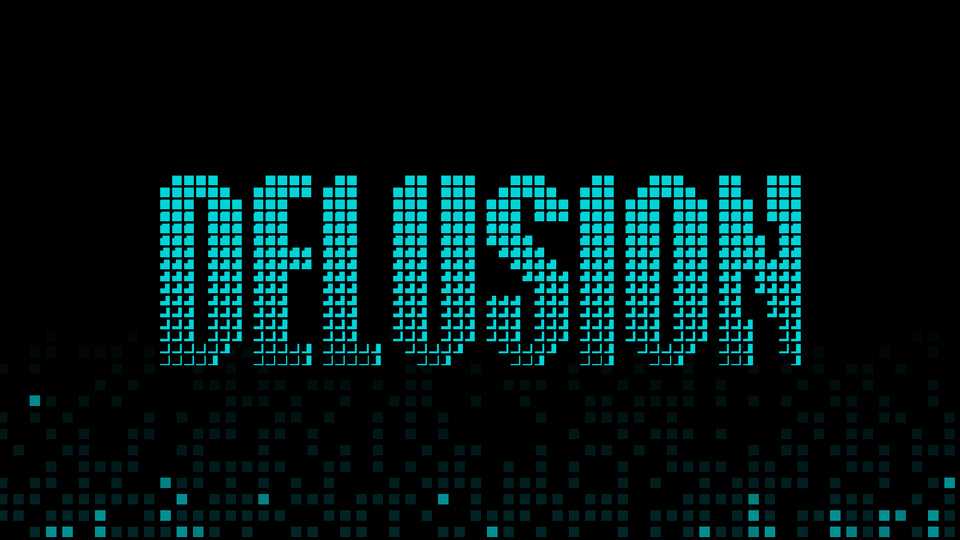
Download Delusion font, a pixelated display typeface. Delusion is great for poster, title, bold headline designs with focus on technology, industrial, futuristic, sci-fi subjects.
Designer: Jonathan Paterson